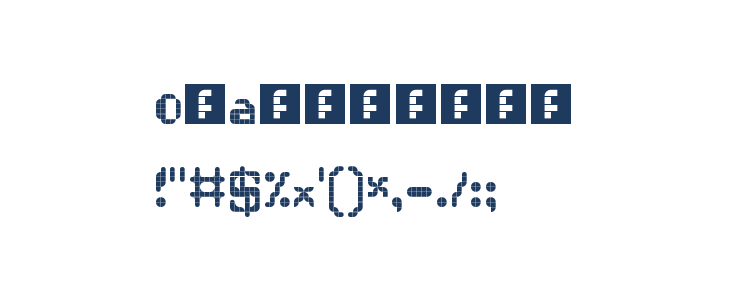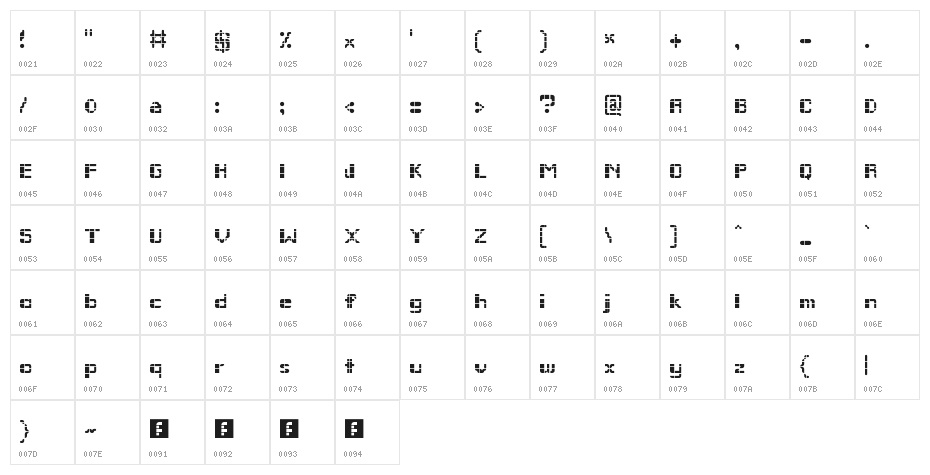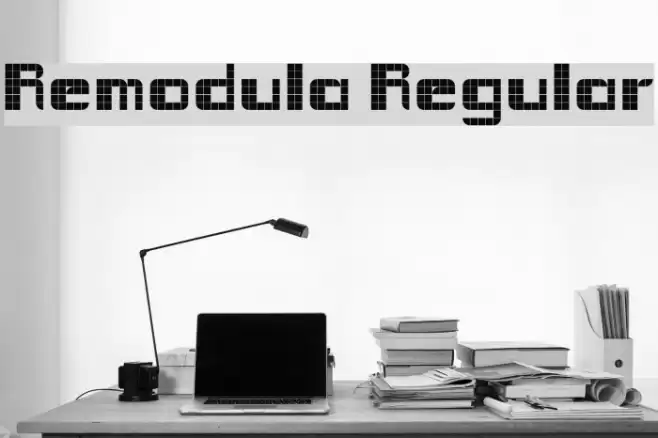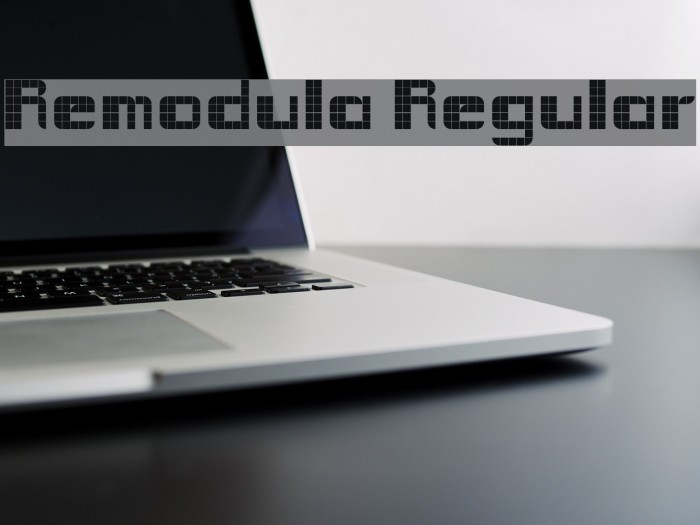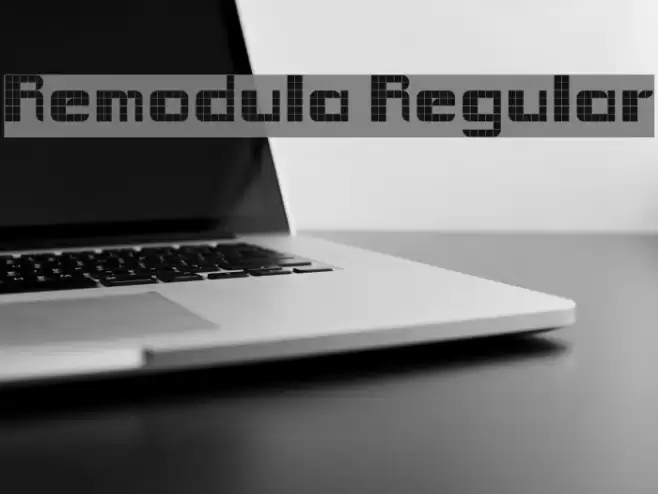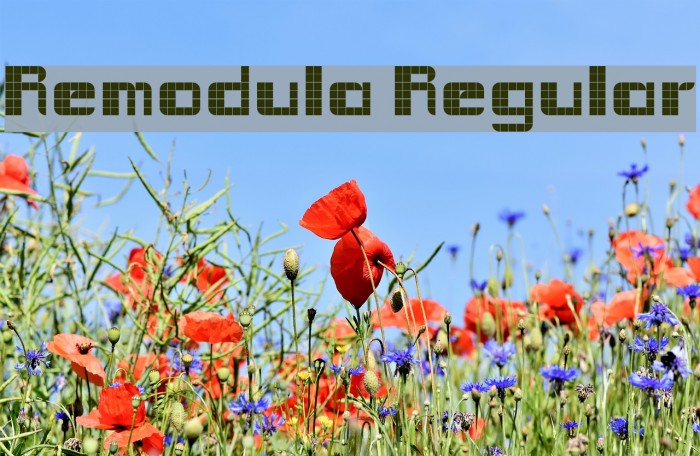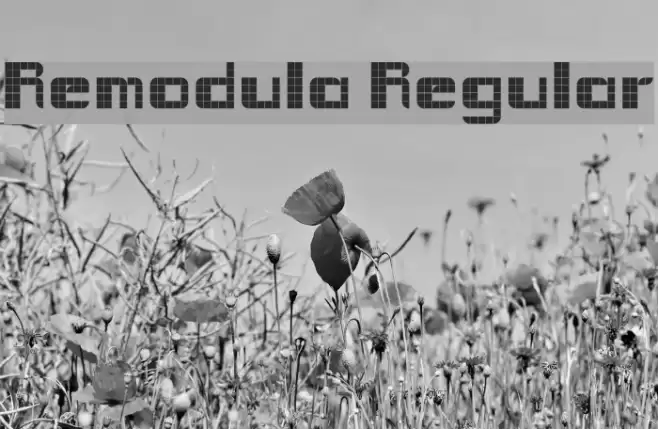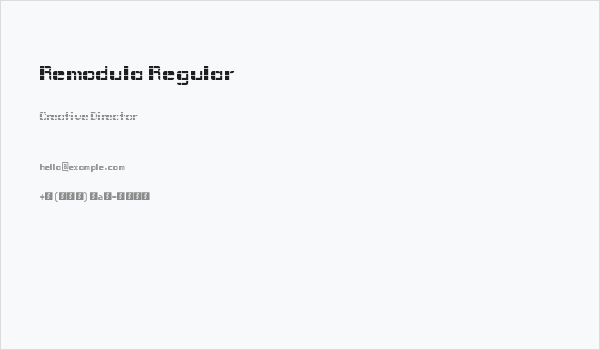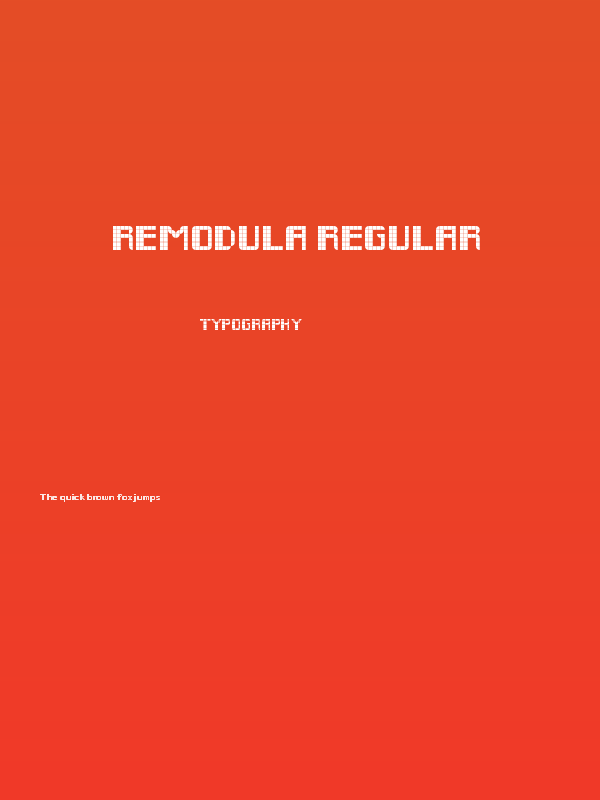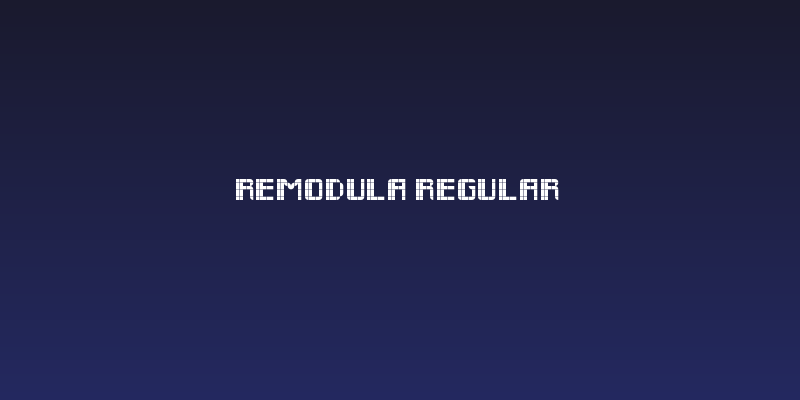
Remodula Regular Font
Remodula Regular Description
This font features a unique, modular design with a grid-like pattern that gives it a digital, futuristic appearance. Each character is composed of small, square blocks arranged to form the letters, creating a pixelated effect. The uppercase and lowercase letters maintain a consistent structure, with the same blocky style applied throughout. The numbers and special characters follow the same design principles, ensuring uniformity across the entire character set. This font's geometric and structured look makes it stand out, ideal for projects that require a modern and tech-inspired aesthetic.
| Use Case | Logos, Headlines, Digital displays |
| Proposed Projects | Ideal for digital art, tech branding, video game design, and futuristic-themed projects. |